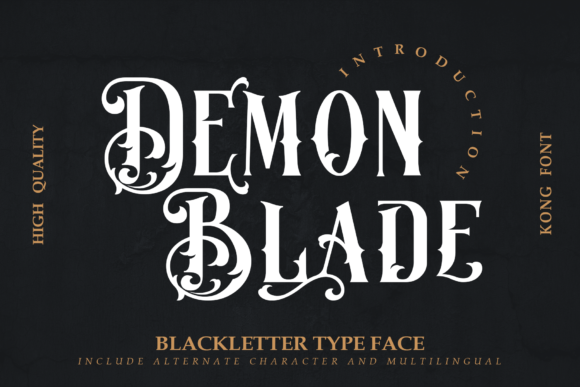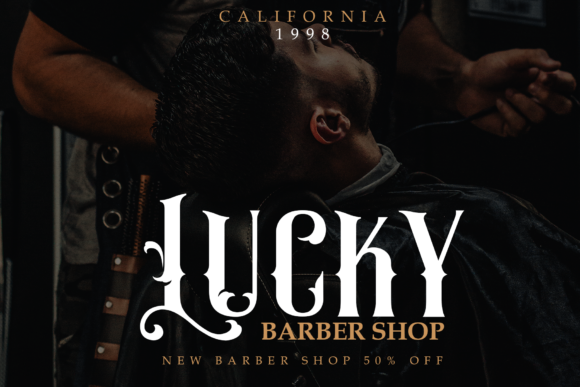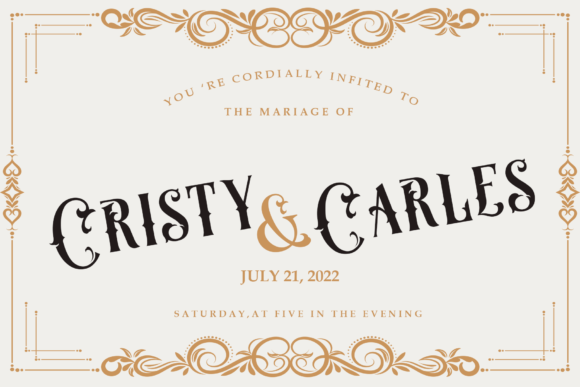
Demon Blade Font
Demon Blade is a vintage and playful blackletter font. It’s great for crafters and designers. It is compatible with tools such as Photoshop and Silhouette design studio. its playfulness can make it great for creative projects.
Created by Kong Font Studio